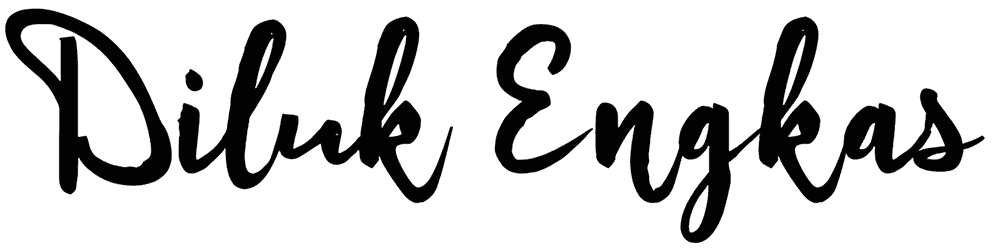
d Diluk Engkas Font
Do you have any idea that the collection you’ve just uncovered here is by far the finest handwritten fonts ever? Here’s a top-notch full letter waiting for your upload any minute now, with such an astonishing natural vibe that it even sparks any interest promptly.
Meet with something new, a calligraphy font with light outward that makes your day. d Diluk Engkas, as a versatile gamer, aims to improve your artwork attention through its approachable, friendly vibe.